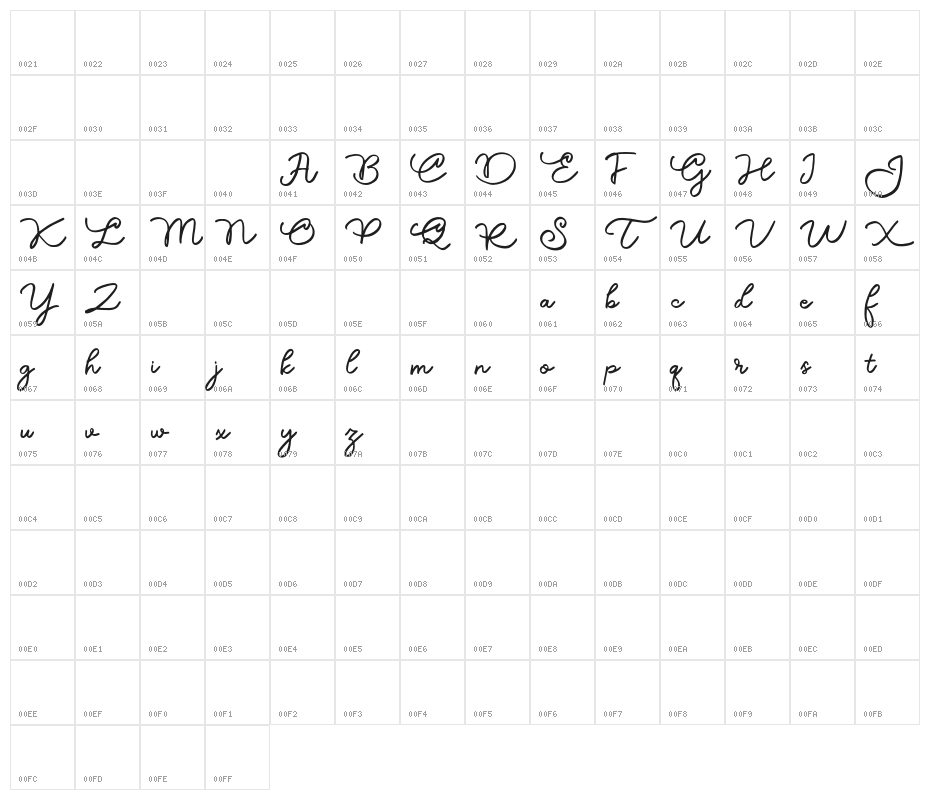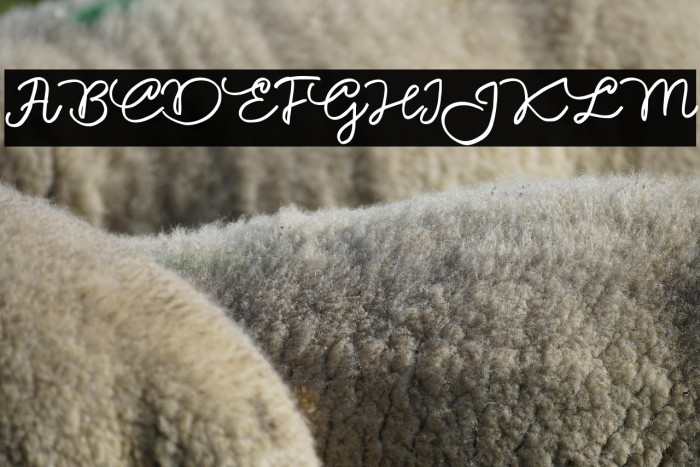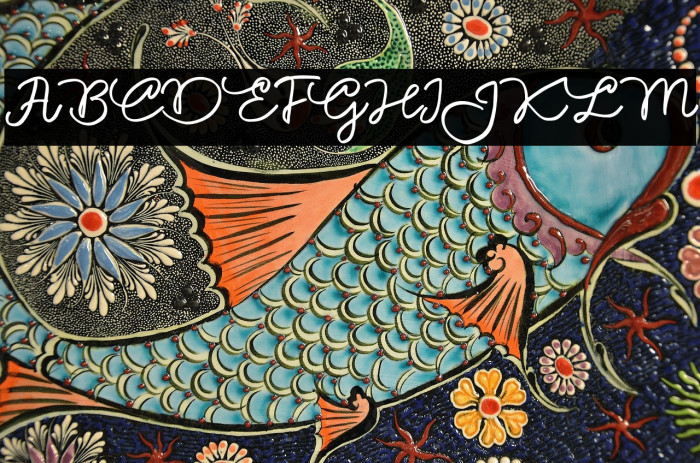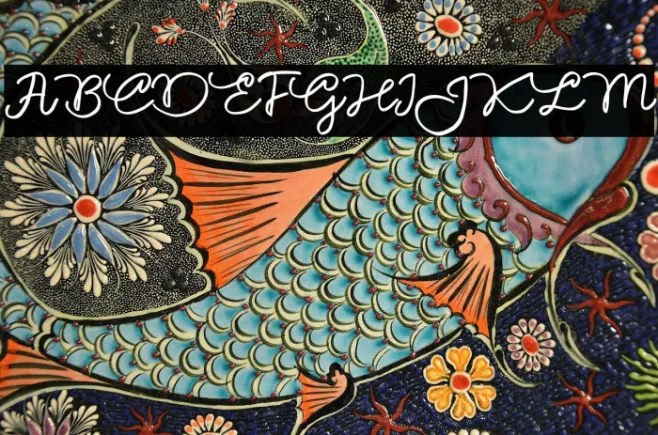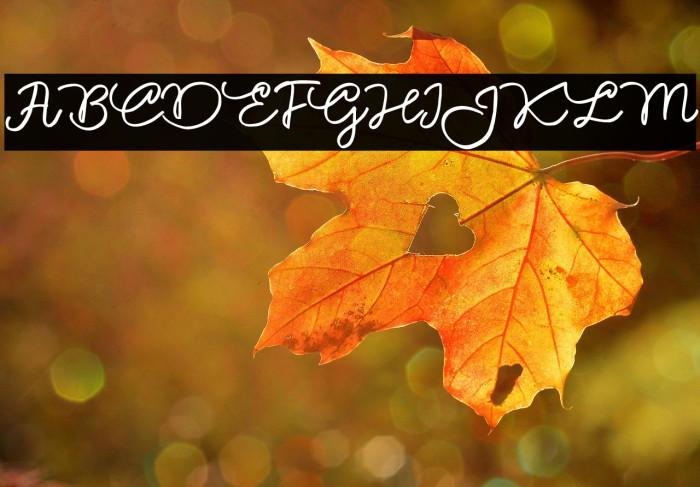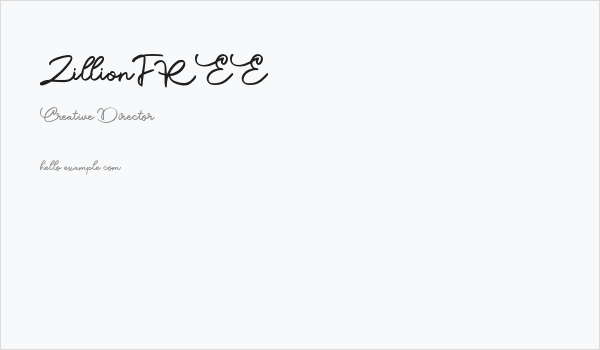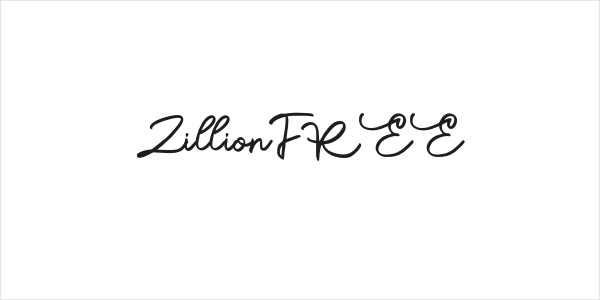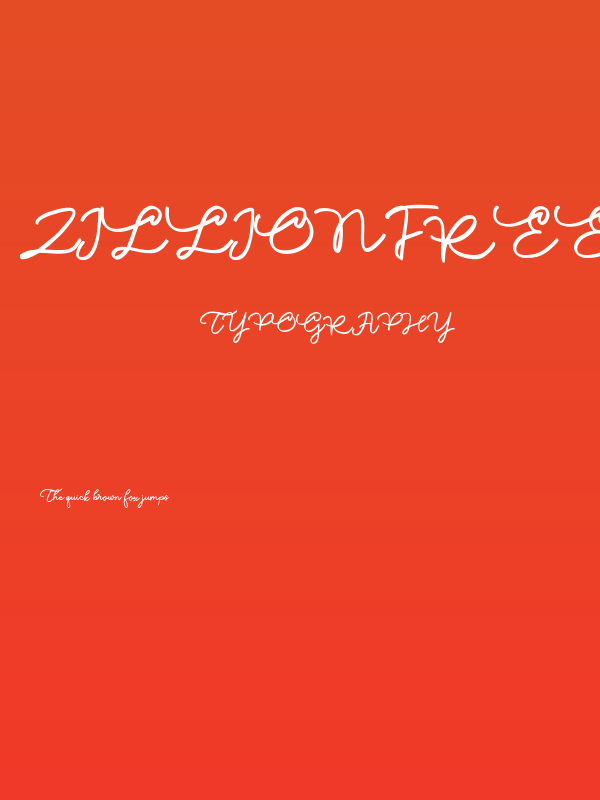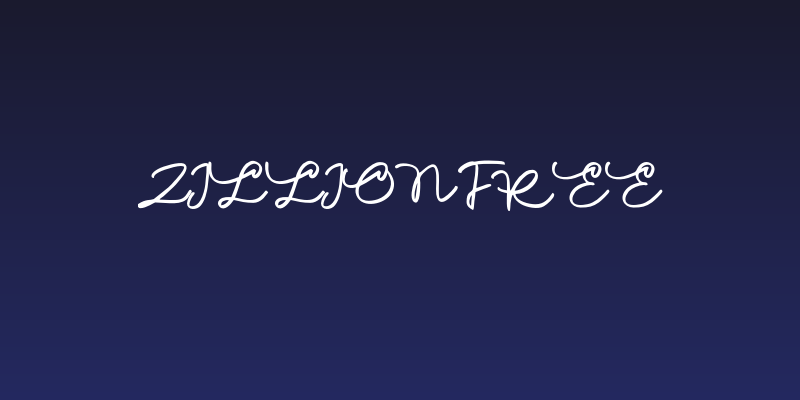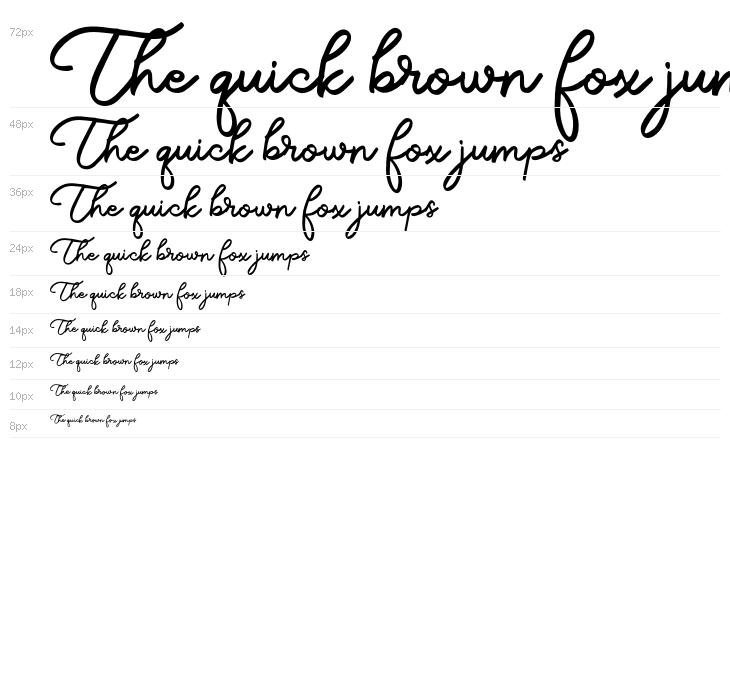
ZillionFREE Font
ZillionFREE Description
This font features a flowing, cursive style with elegant loops and swirls, giving it a handwritten appearance. The uppercase letters are slightly more ornate, with extended flourishes, while the lowercase letters maintain a consistent, smooth flow. The overall design is both sophisticated and approachable, making it suitable for a variety of creative applications. The characters are well-spaced, ensuring readability while maintaining the script's artistic flair. The font's design is versatile, lending itself well to both formal and informal contexts.